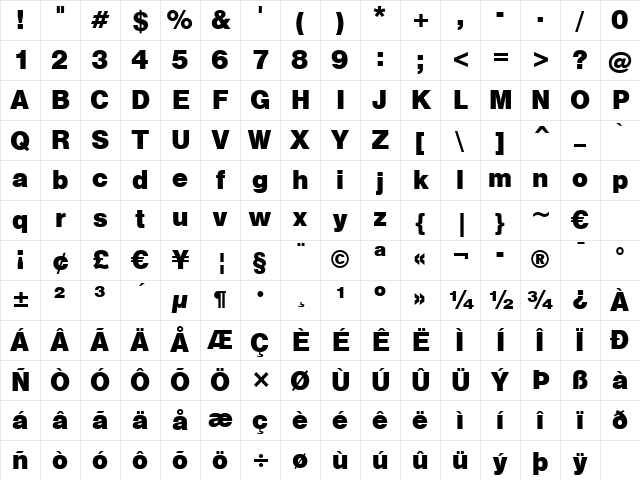
Swis721 Blk2 BT Black
Complete Swis721 Blk2 BT Black glyph index. Displaying only characters natively supported by Swis721 Blk2 BT Black font.
Design Context for Swis721 Blk2 BT
Swis721 Blk2 BT is a composed and adaptable typeface that performs quietly and consistently across a wide range of design contexts.